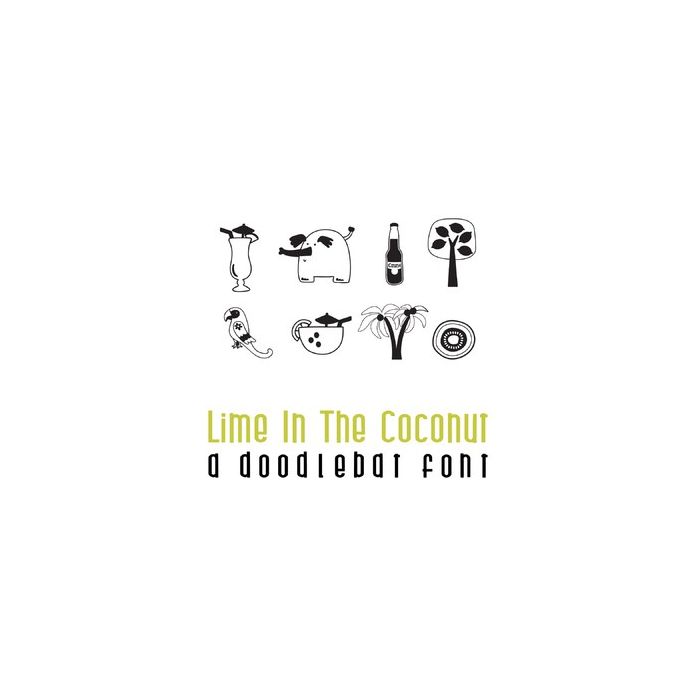
lime in the coconut doodlebat font
This fun doodlebat font features 26 fun tropical summer imagery Perfect for cards, gifts, decor, crafts, scrap book pages, planner stickers and more!